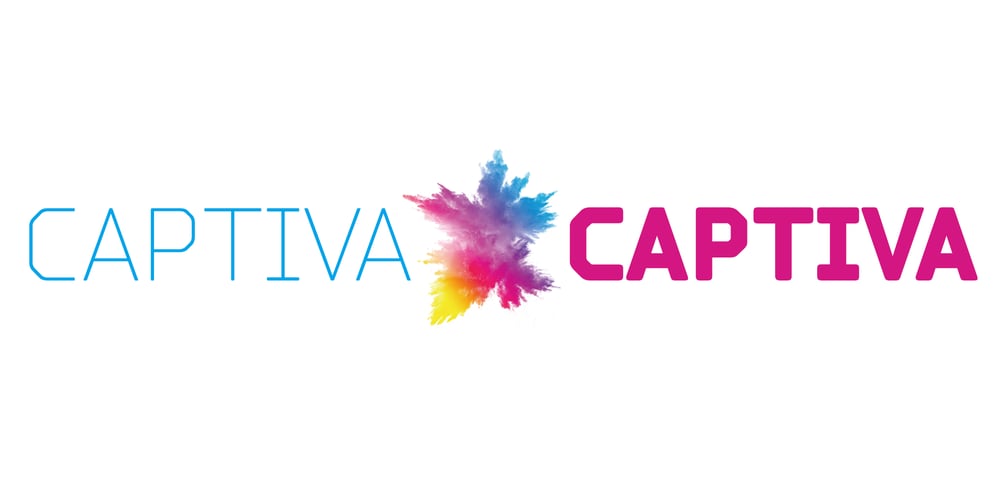
ZF Captiva Font Family was designed by joo-hong Kim and published by ZooFont. ZF Captiva contains 9 styles and family package options. The name Captiva is derived from the word captivate, meaning ‘enchanting’ or ‘capturing the heart’.Captiva is a geometric sans serif font with a harmonious blend of clean shapes and straight lines, diagonal lines, and curves.The simple yet sophisticated design shows a soft yet hard, hard yet beautiful appearance.It has a total of 9 thickness levels, and the edges and strokes are rounded to give the user a peaceful impression.The non-decorated form gives the user a comfortable reading of the text, and the high height value and wide inner space make it stand out from other fonts. In addition, it provides comfortable readability in various digital media as well as in general printing environments.Captiva has the following features: 9 thickness levels (from thin to heavy) extended latin 450+ glyphs fixed width numbers The Latin extension offers more than 130 languages with extensive multilingual Latin support for Western, Central, and Southeastern Europe.